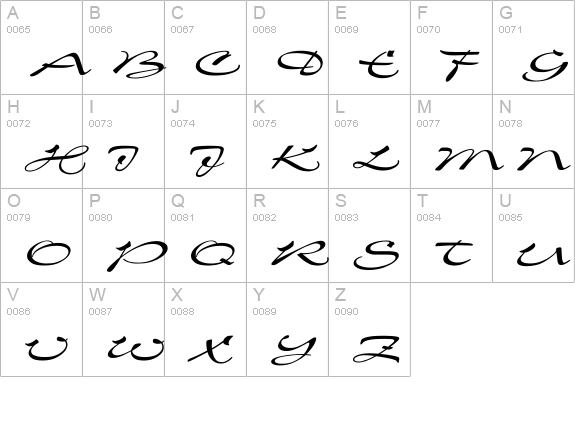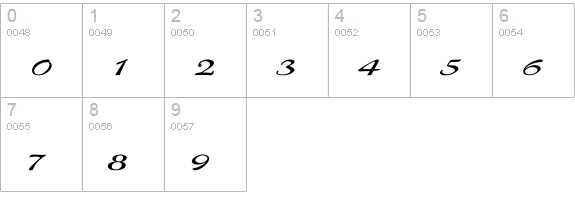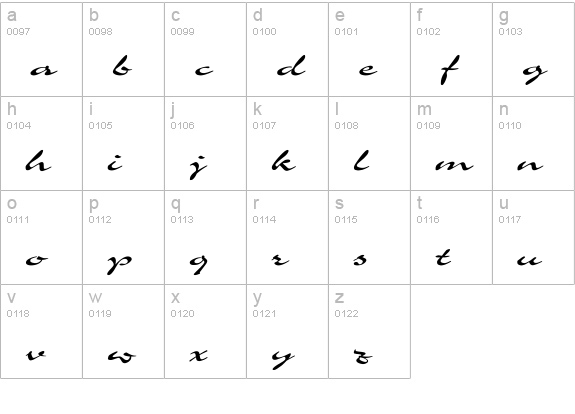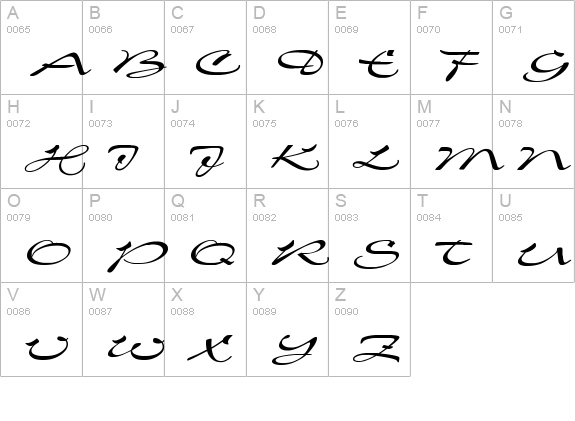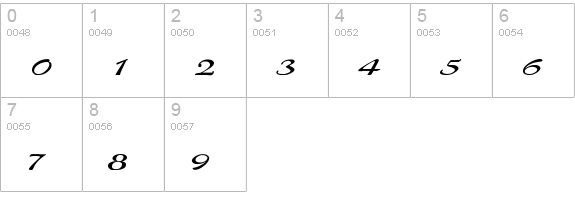
Charme Ex Font Details
Charme Ex is a stunning and versatile font that exudes elegance and sophistication. Its sleek and modern design makes it perfect for a wide range of projects, from branding to editorial design. With its graceful curves and clean lines, Charme Ex adds a touch of class to any creative endeavor. What makes Charme Ex even more appealing is that it is available for free download at FontsMarket.com. This means that you can easily access this beautiful font and use it in your projects without any cost. Don't miss out on the opportunity to enhance your designs with the charm and beauty of Charme Ex. Download it today and let your creativity shine!